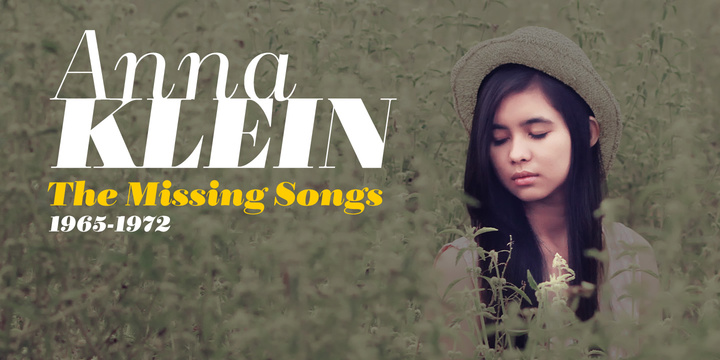
Introducing the innovative and original Josep Patau’s new recipe, salsa and wild-type master.
1. In a fountain, combine a bit of slightly outdated British slab types from the late Victorian period. If you find Vincent Figgins’s variety, do not discard. You'll find plenty to choose from in his specimens, some of then with unexpected vitality an enviably condition, despite it’s age. As aging wine, they had improve their quality with time. Cut Didones into thin slices and add. More…